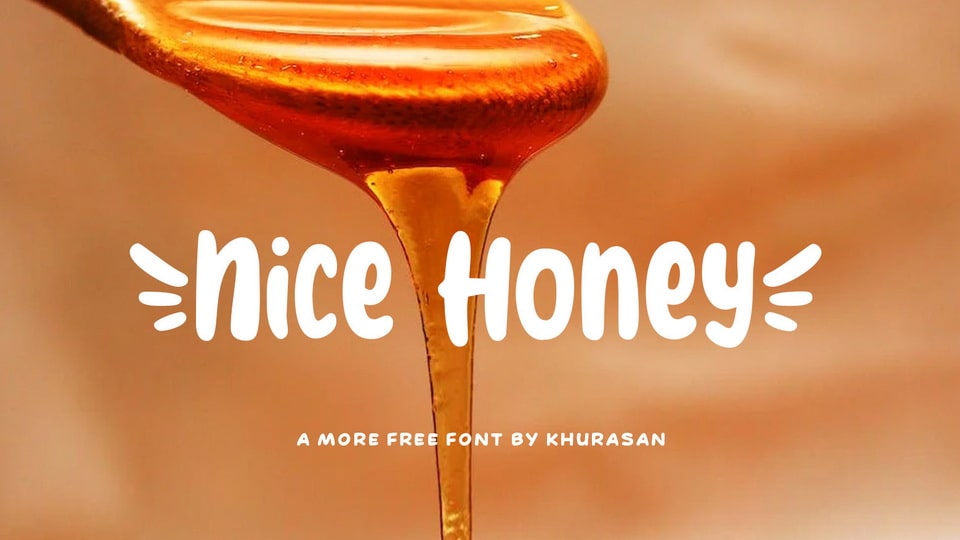
Download Nice Honey font, a cute and sweet hand lettered typeface that will add a playful, natural touch to any projects. Handcrafted with care, Nice Honey font is well suited to create everything from children books to branding – all with an authentic feel.